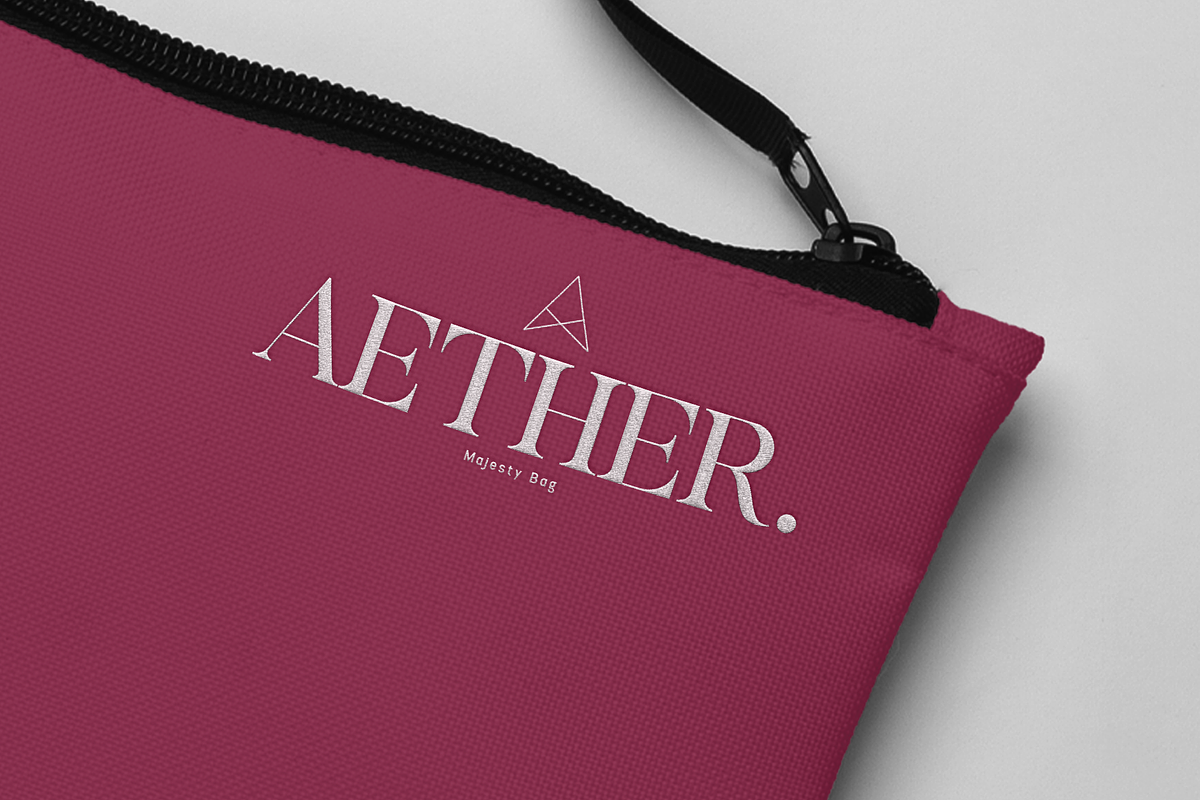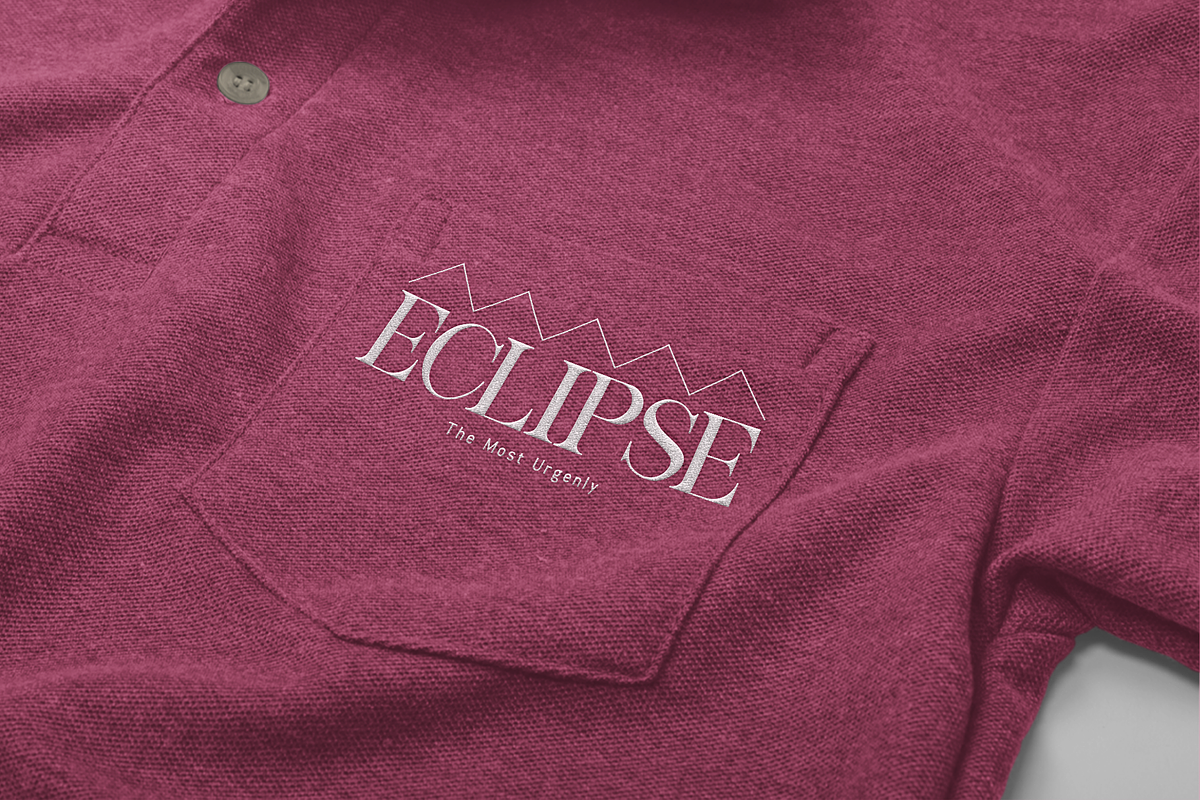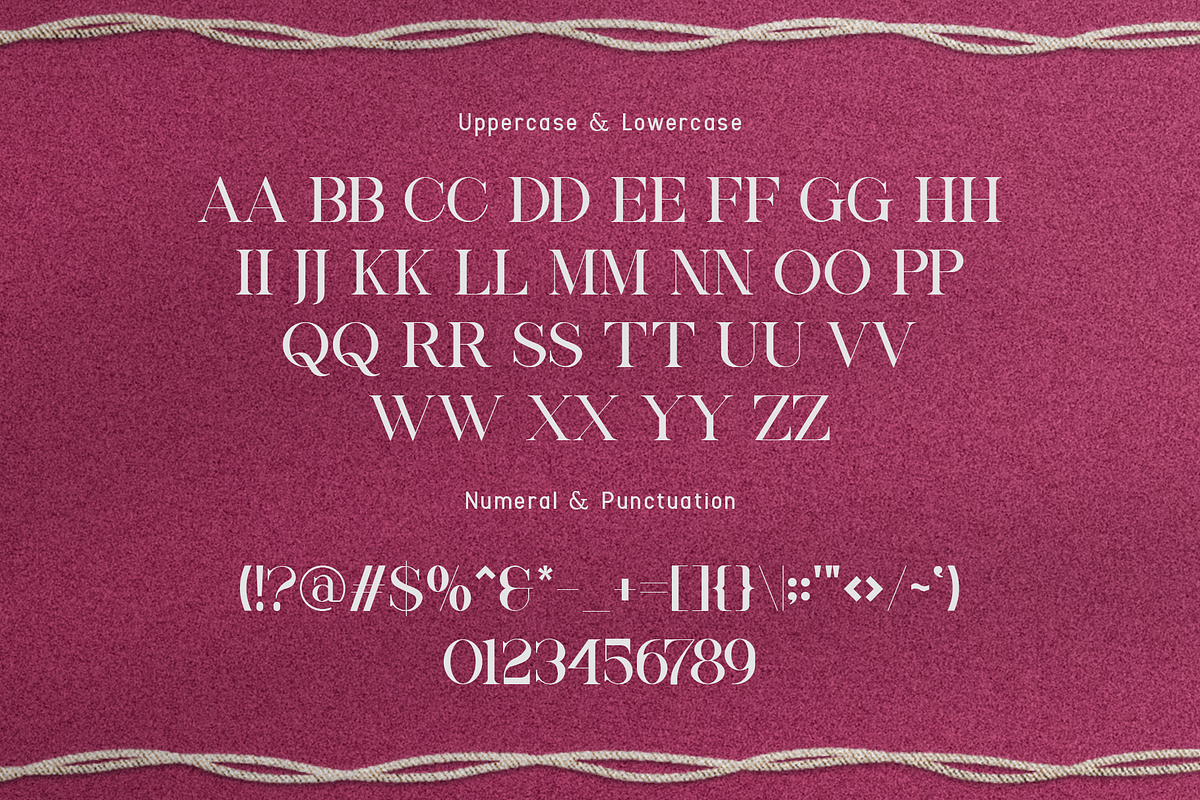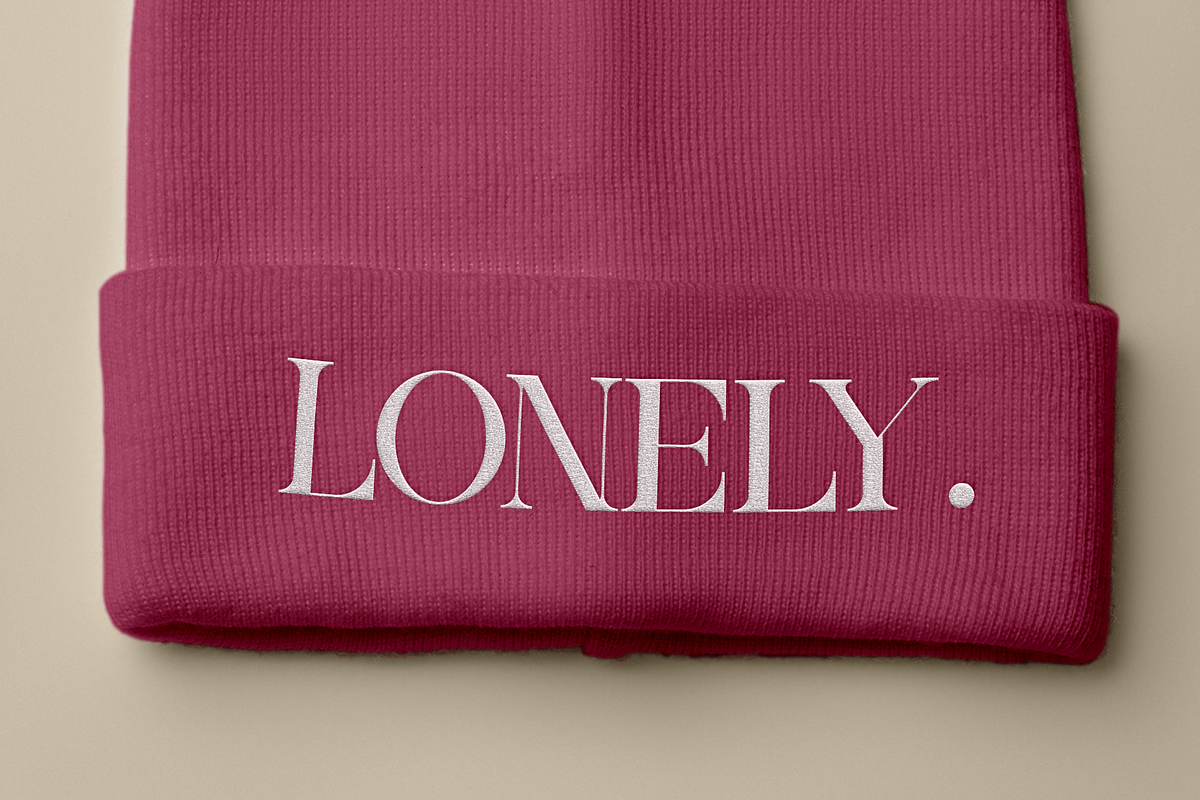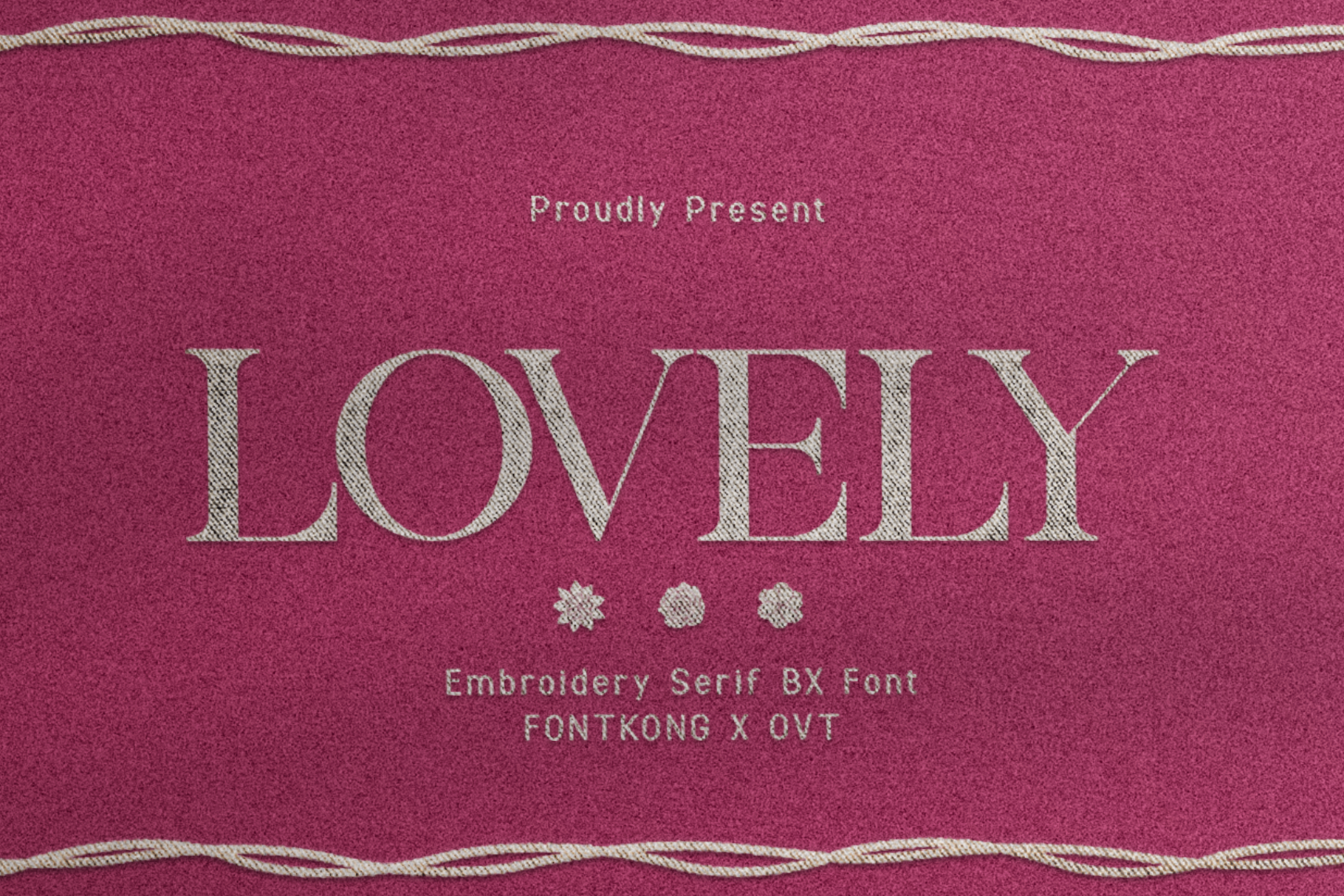
Lovely - Embroidery Serif BX Font
Introducing "Lovely," an embroidery serif BX font that infuses your designs with elegance and charm. Perfect for those who cherish the artistry of embroidery, Lovely combines traditional stitch patterns with classic serif typography to create a font that is both timeless and refined.
Expertly crafted, Lovely is ideal for a wide range of creative applications, including apparel design, wedding invitations, home decor, and personalized gifts. Each character is meticulously designed to replicate the delicate and intricate texture of hand-embroidered lettering, adding a touch of sophistication and beauty to your projects.
The "Lovely" font includes a full set of uppercase and lowercase letters, numbers, and punctuation marks, providing the versatility and flexibility you need for various design projects. Whether you’re creating elegant invitations or adding a refined touch to home accessories, Lovely enhances your work with its graceful and intricate aesthetic.
Embrace the charm and sophistication of "Lovely," an embroidery serif BX font that weaves elegance into every letter.